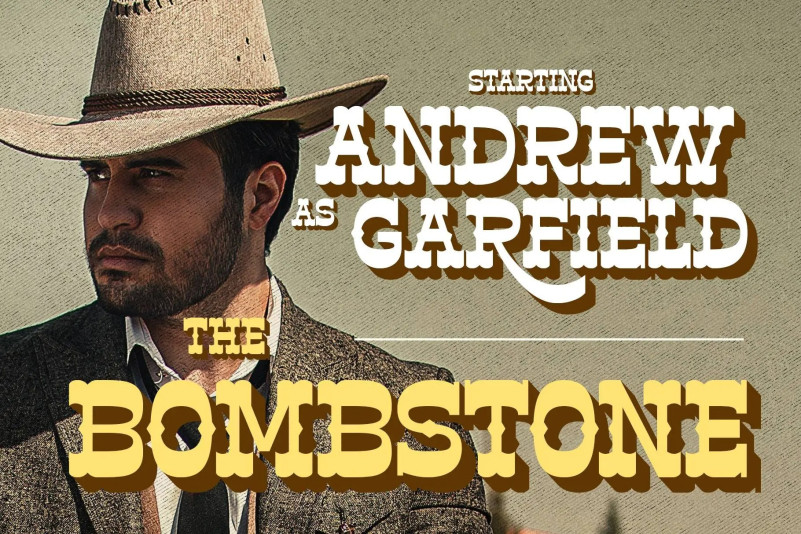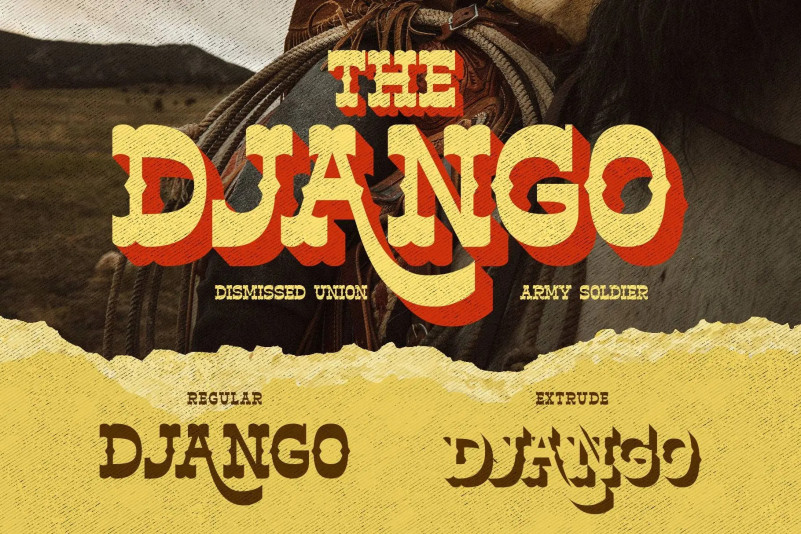
Horse Belonk Font
Introducing “Horse Belonk Display Font” a western style font. Designed well and inspired by cowboy, rodeo, texas, and vintage designs. This font is based on serif form and reversed contrast, featuring strong looks with the spurs in the middle.
Horse Belonk is a display font with an additional Extrude style that you can apply to get a 3-Dimensional typographic design. It’s bold, brave, and elegant to use on title or headline, poster, flyer, stickers, vintage logos, signboards, packaging, and more!